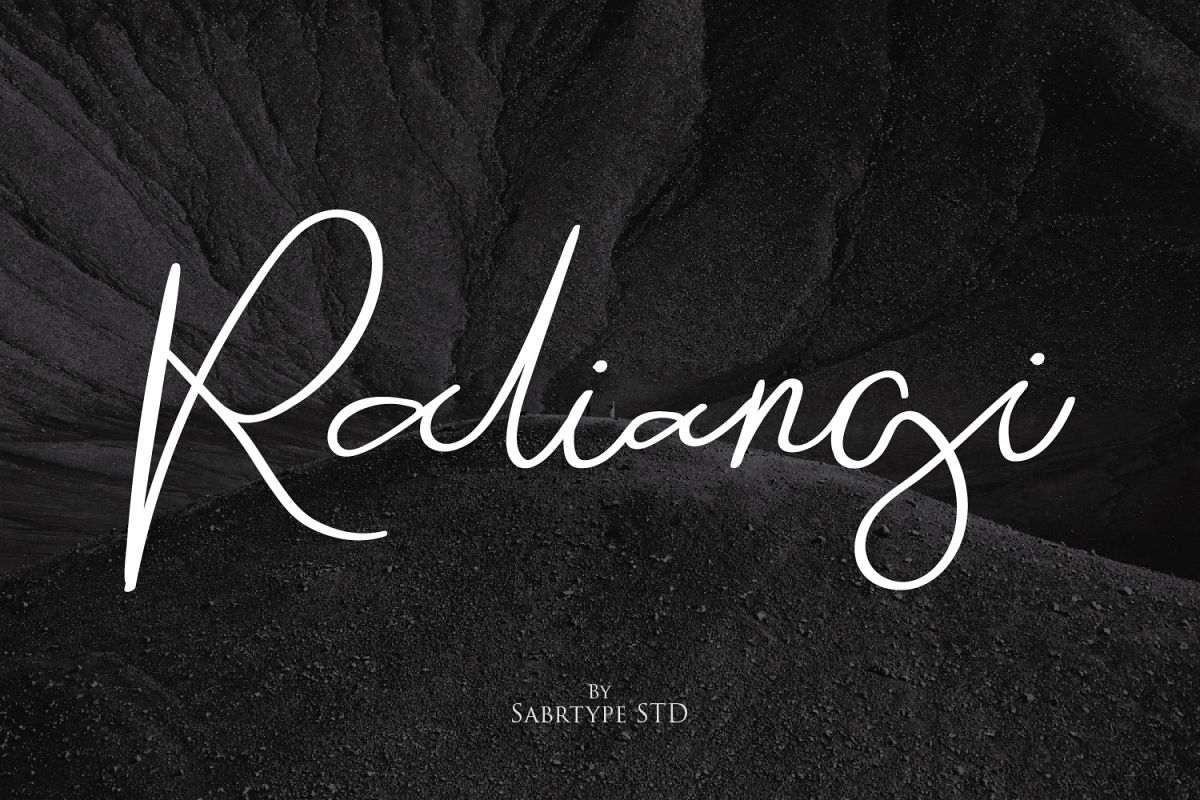
Raliangi Font
Raliyangi is modern
script font. This perfectly suited to signature, stationery, logo,
typography quotes, magazine or book cover, website header, clothing, branding,
packaging design and more.